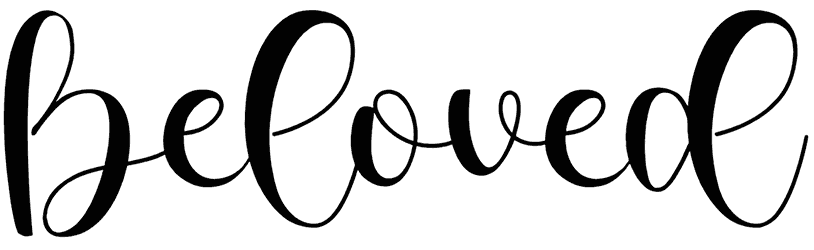
Beloved Font
Beloved font can give a handwritten illusion to your words, making your design a nice vision. This love font has an upbeat and bold character style, made with brush effects, and it will convey a casual and groovy look to your reader.
You can use it for movie and book titles, show and play posters and flyers, shop signs, and product packaging. The letters will come together in a continuous style.